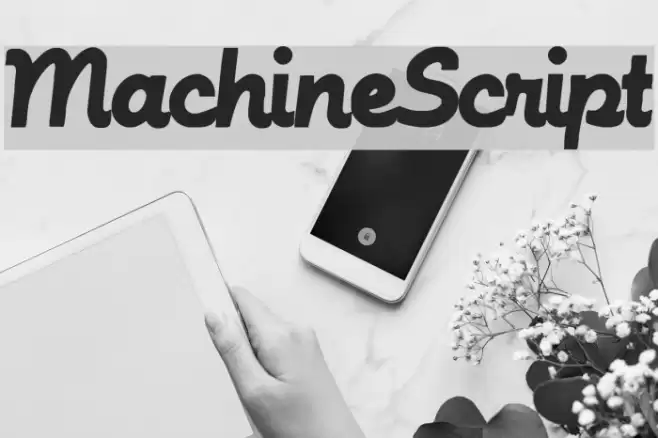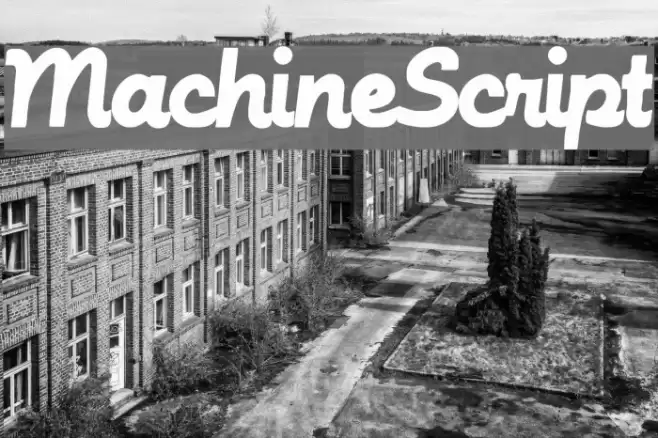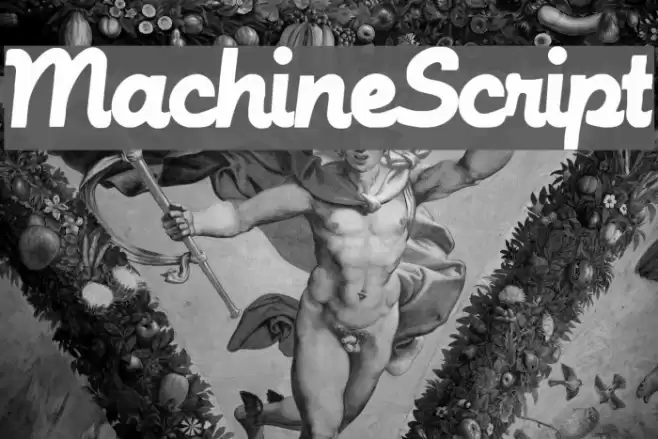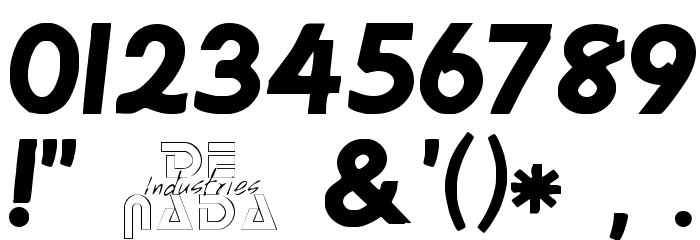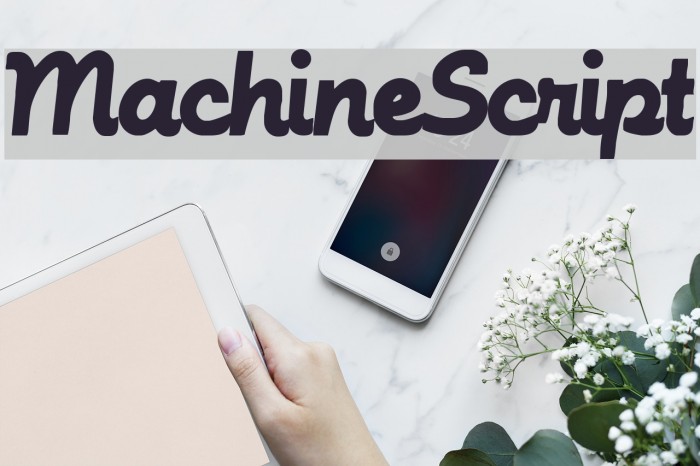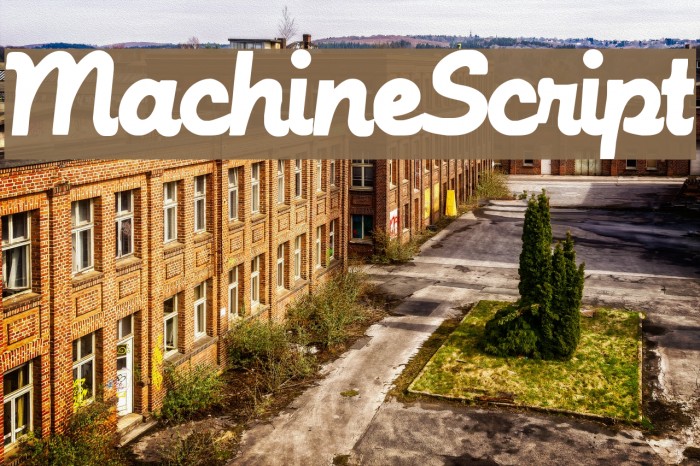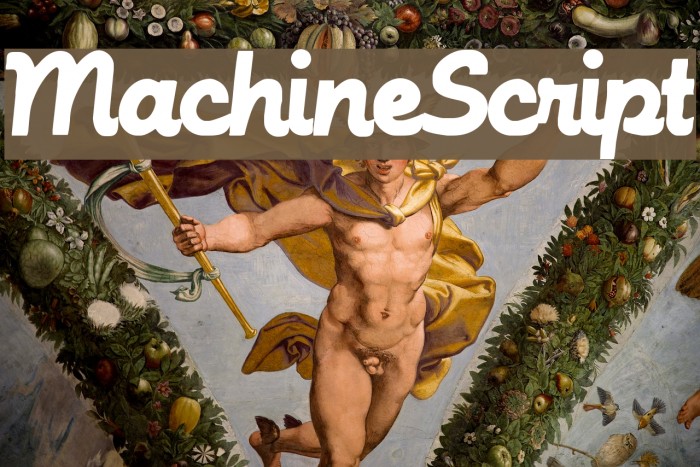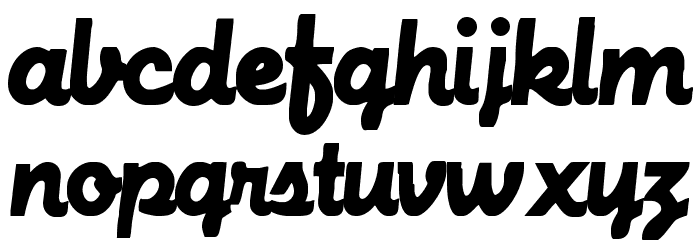
MachineScript Font
MachineScript Description
This font features a bold and dynamic script style with a playful and energetic feel. The characters are connected, giving it a flowing and cursive appearance. The strokes are thick and consistent, providing a strong visual impact. It has a modern and informal look, making it suitable for creative and casual applications. The uppercase letters are slightly more structured, while the lowercase letters exhibit a more relaxed and rounded form. The numerals and special characters maintain the same boldness, ensuring uniformity across all elements.
A bold, dynamic script font with a playful and energetic style from Script fonts.
- Proposed Projects: Ideal for branding, logos, posters, and creative design projects that require a lively and informal touch.